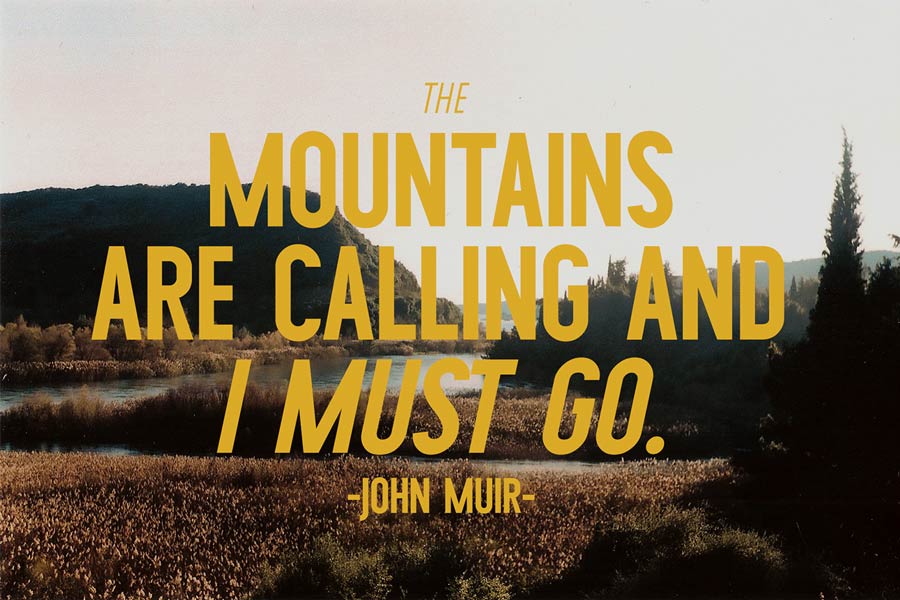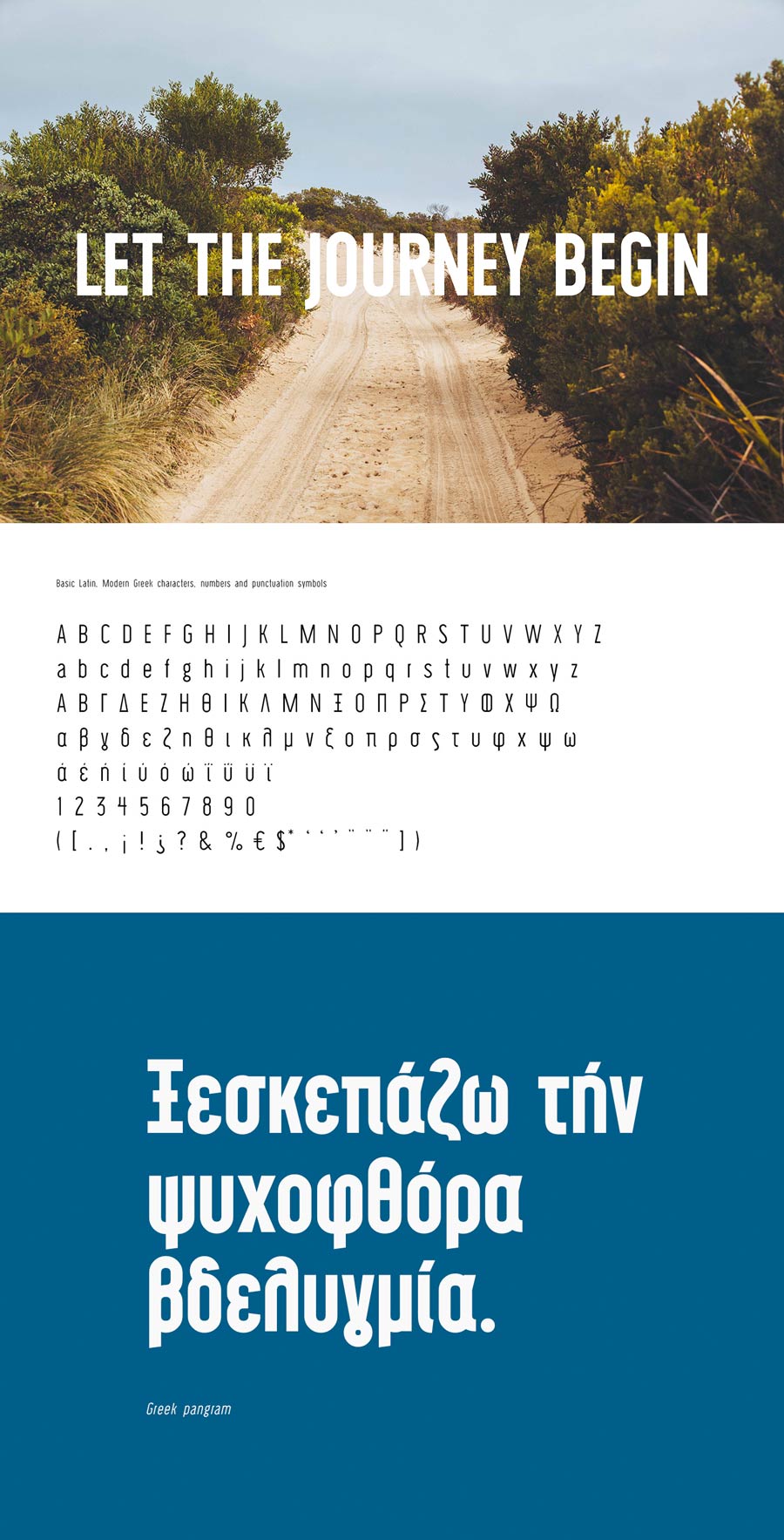
Wask is a condensed sans serif font that sits in between DIN and Bebas Neue. It comes with Regular and Bold font weight with italics, and it supports Latin and Greek characters. The clean structure of the font design makes it useful for headline titles for both digital and print designs, and works great on design with big white spaces.
- Styles: 4 (Regular and Bold + italics)